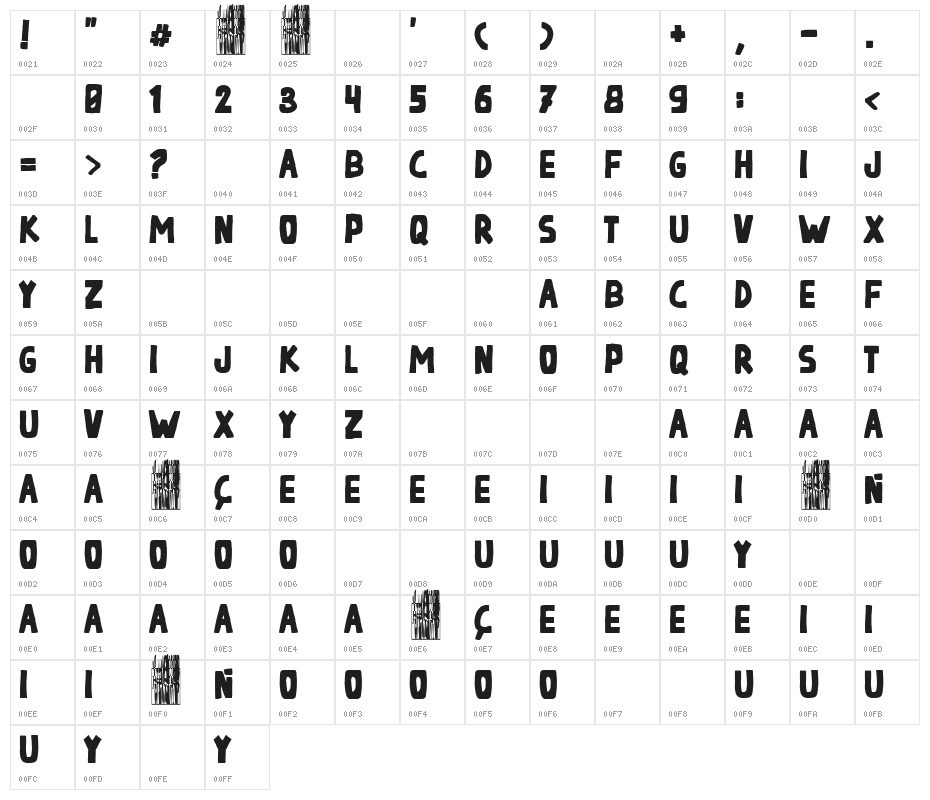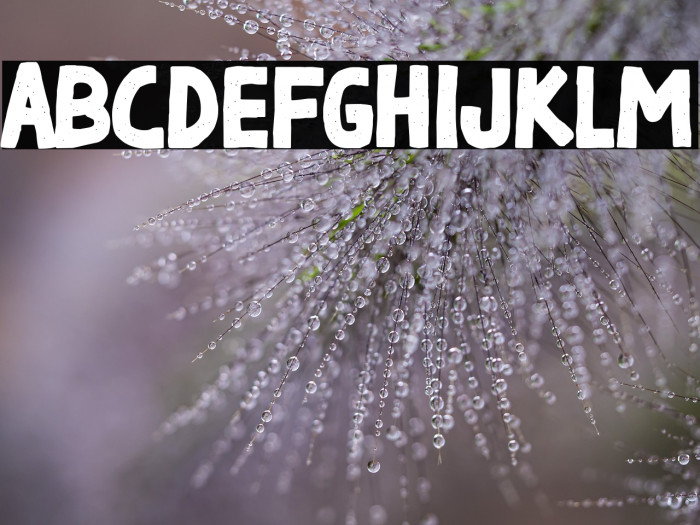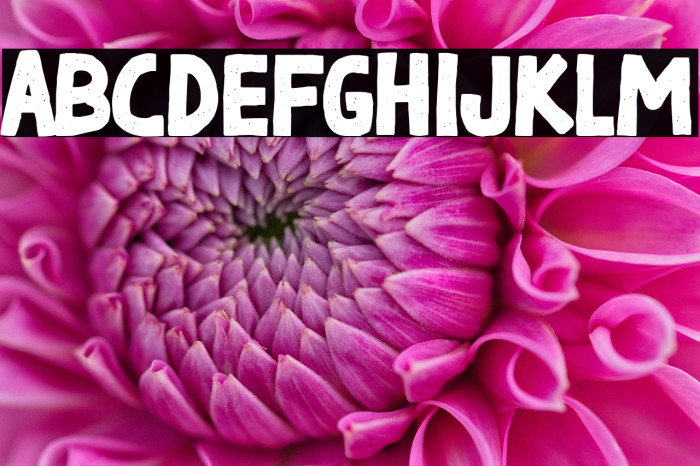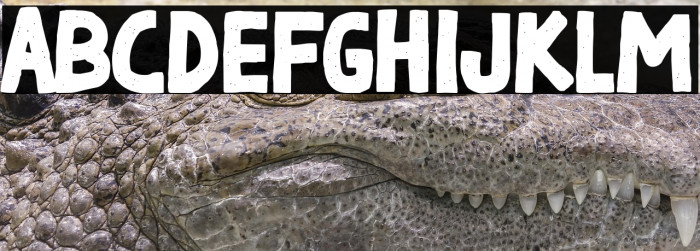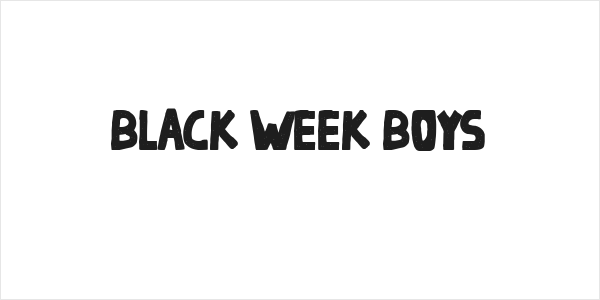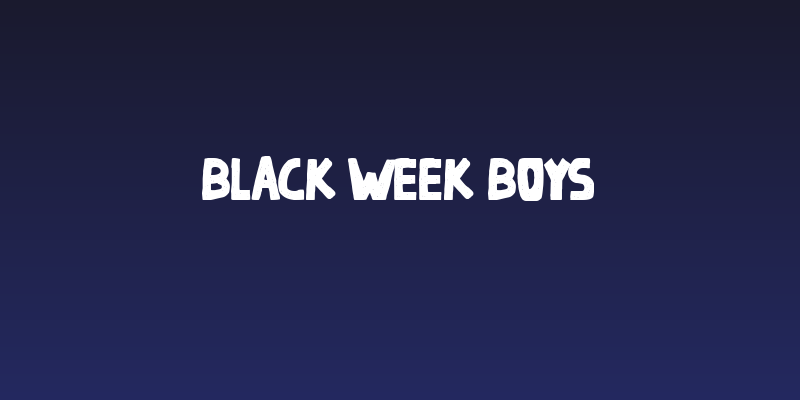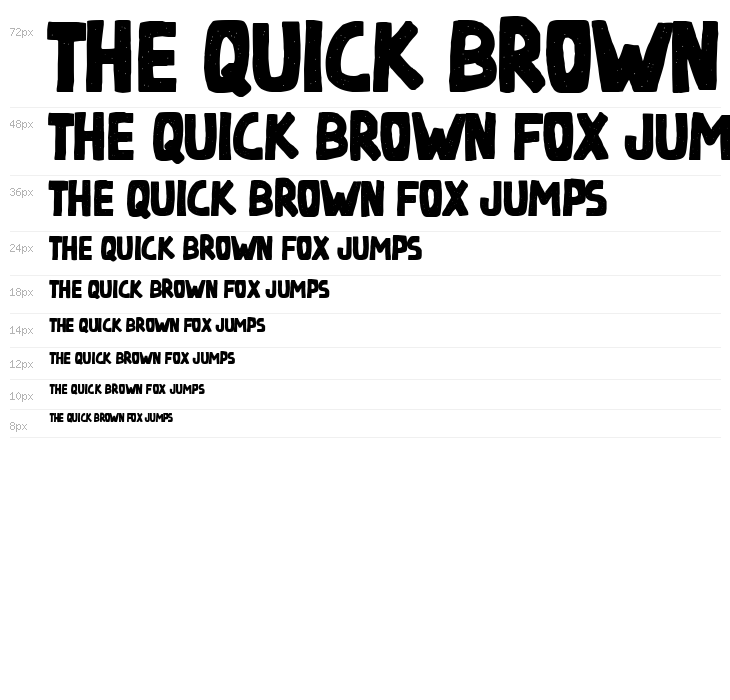
Black Week Boys Font
Black Week Boys Description
This font features a bold and rugged style with a distressed texture that gives it a vintage, hand-crafted appearance. The characters are thick and blocky, with a slight unevenness that adds to the rustic charm. Each letter and number is distinct, with a consistent width and height, making it highly legible. The font includes a full set of uppercase and lowercase letters, numbers, and a selection of special characters. Its boldness and texture make it stand out, ideal for projects that require a strong visual impact.
| Proposed Projects | Ideal for posters, logos, branding, and packaging that require a bold, vintage aesthetic. |